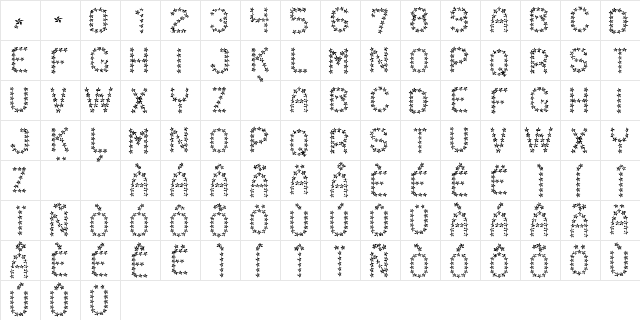
Flowered St Regular
Design Context for Flowered St Typeface
Flowered St is a composed and adaptable typeface that performs quietly and consistently across a wide range of design contexts.